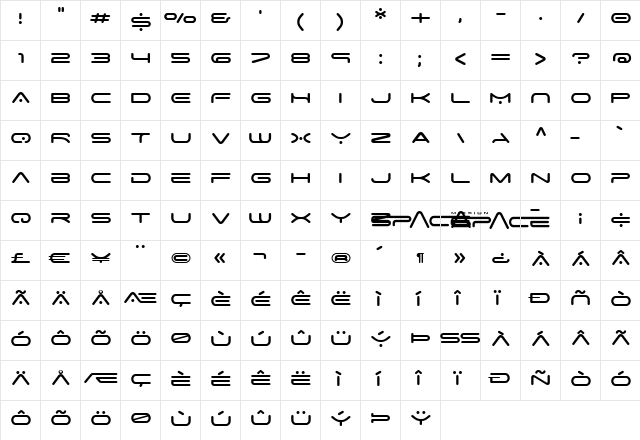
Disney Mission Space Regular
Design Context for Disney Mission Space Typeface
Disney Mission Space is a composed and adaptable typeface that performs quietly and consistently across a wide range of design contexts.